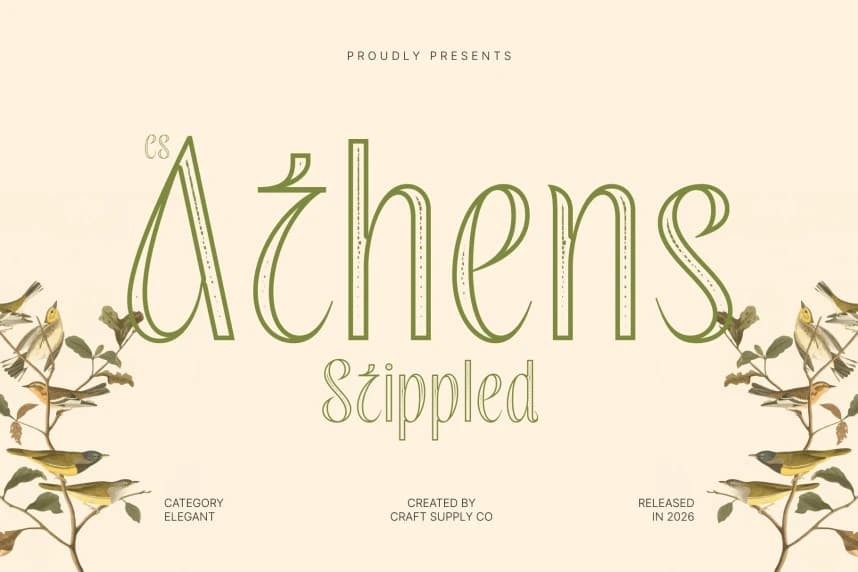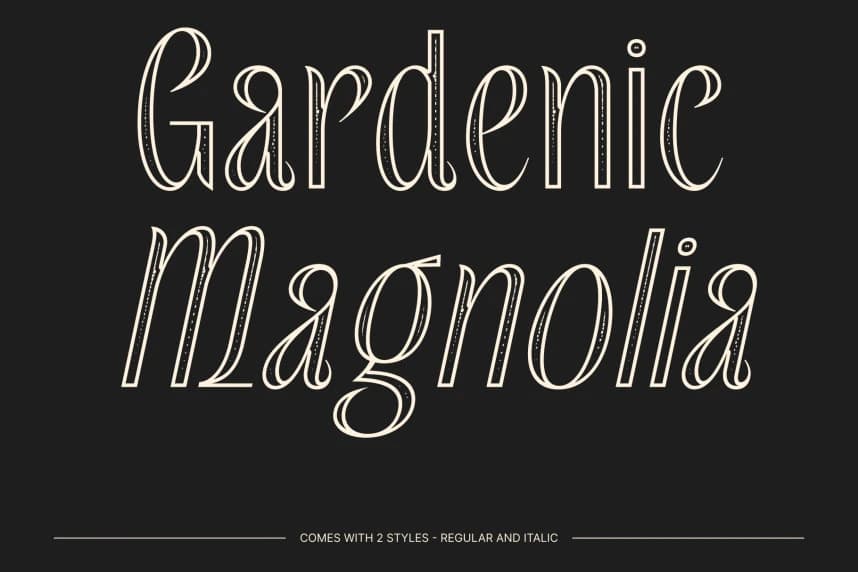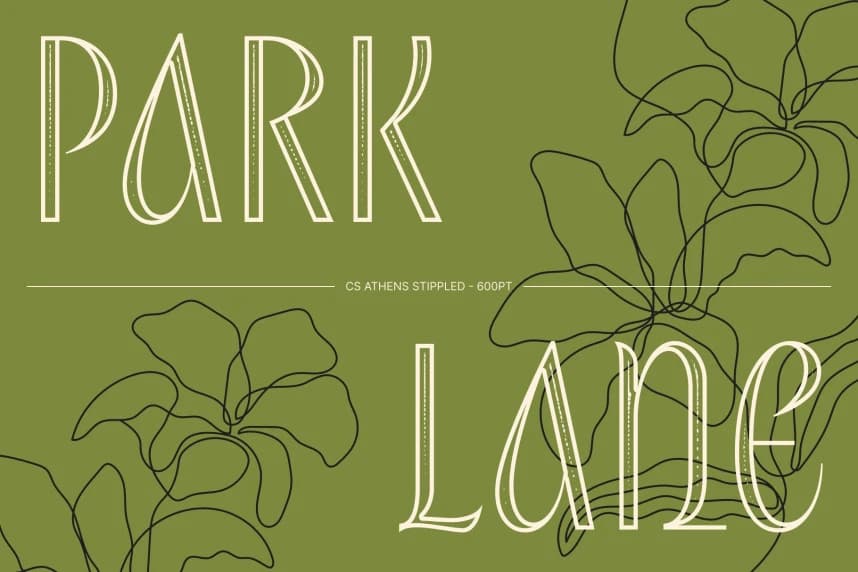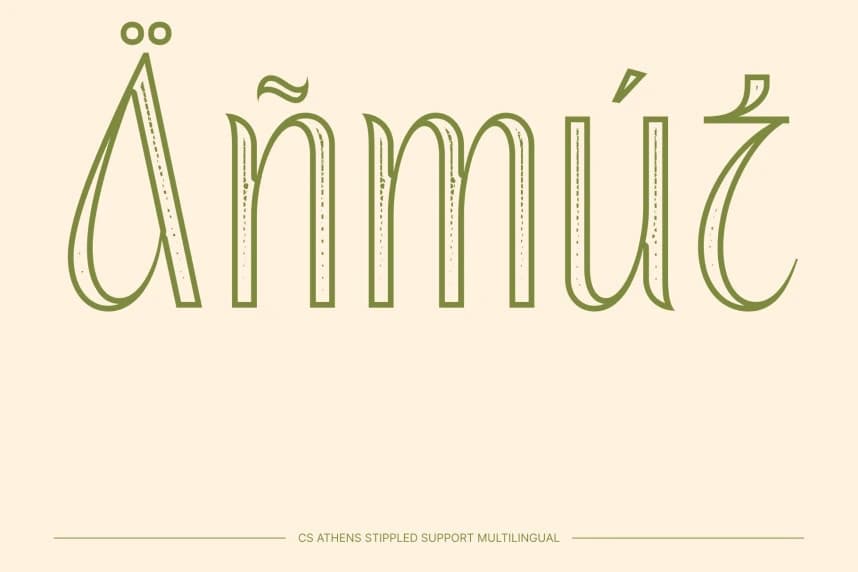
CS Athens Stippled Font
CS Athens Stippled Font – Elegant Font: Timeless Grace and Sophistication Modern Display Elegance with Stippled Refinement. This is a modern display font designed to exude sophistication